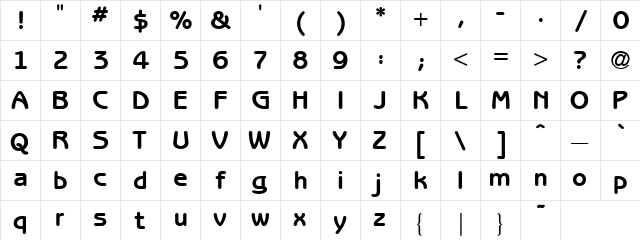
Redjamin Gothic Regular
Design Context for Redjamin Gothic Typeface
Redjamin Gothic takes a clean, functional approach — its unadorned letterforms prioritise legibility and work reliably across screen and print environments.
Font Pairing: Works well alongside a characterful serif or display font that can carry the expressive load while Redjamin Gothic handles the functional copy.
Pro Tip: Pair Redjamin Gothic with a display or serif font for headlines — its neutral character makes it an excellent supporting player in complex typographic systems.